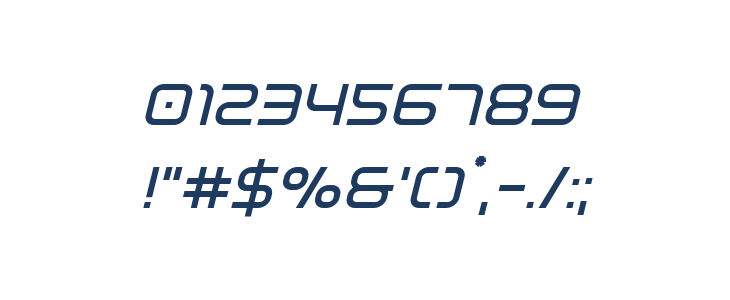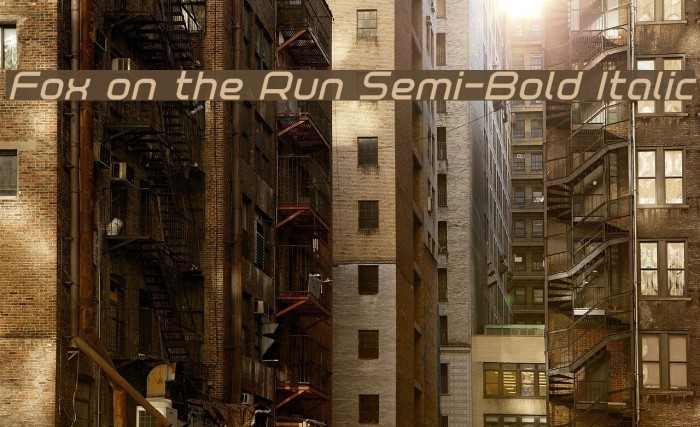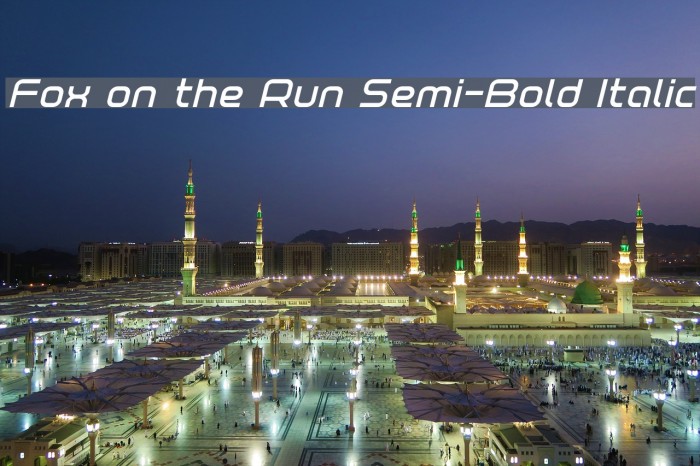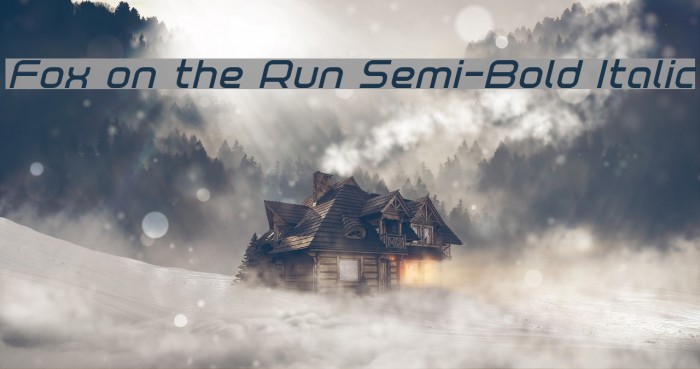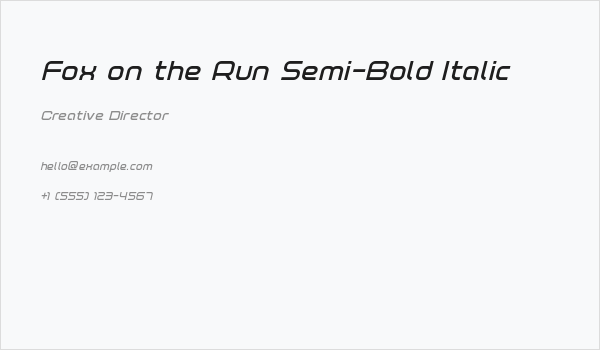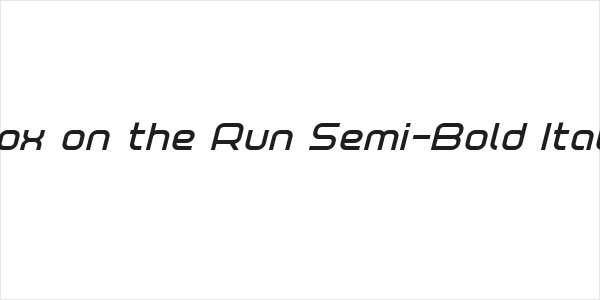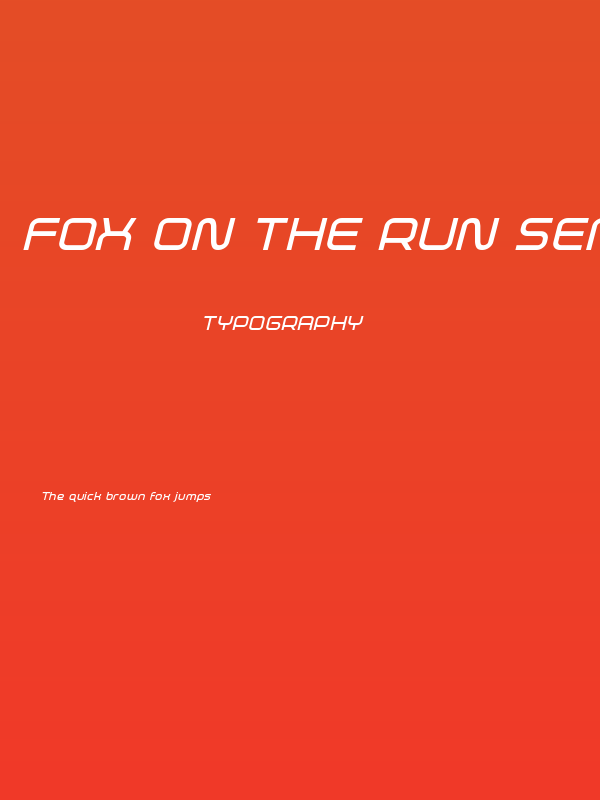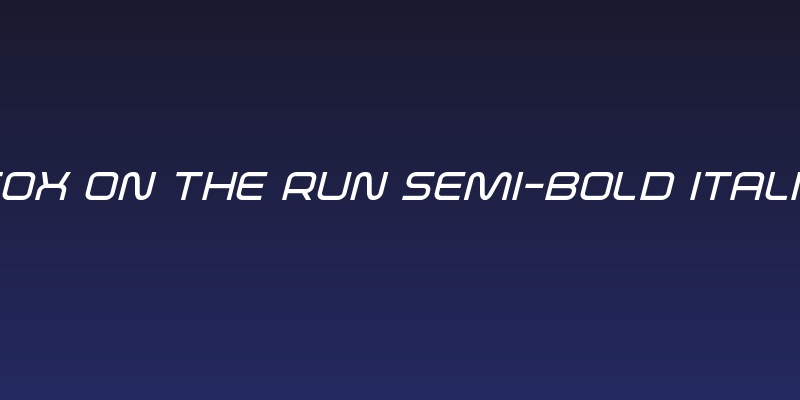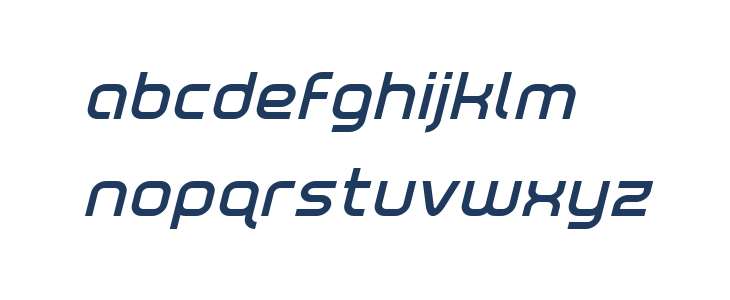
Fox on the Run Semi-Bold Italic Font
Fox on the Run Semi-Bold Italic Description
This font features a sleek, modern design with a semi-bold weight and italic style. The characters are slightly condensed, giving it a streamlined appearance. The strokes are consistent, with medium contrast, providing a clean and professional look. The rounded edges and smooth curves add a touch of elegance, making it suitable for various design applications. The font maintains a uniform character spacing, ensuring readability while preserving its stylish aesthetic.
| Use Case | Headlines, Logos, Digital Media |
| Proposed Projects | Ideal for branding, advertising, and digital media projects that require a modern and professional touch. |